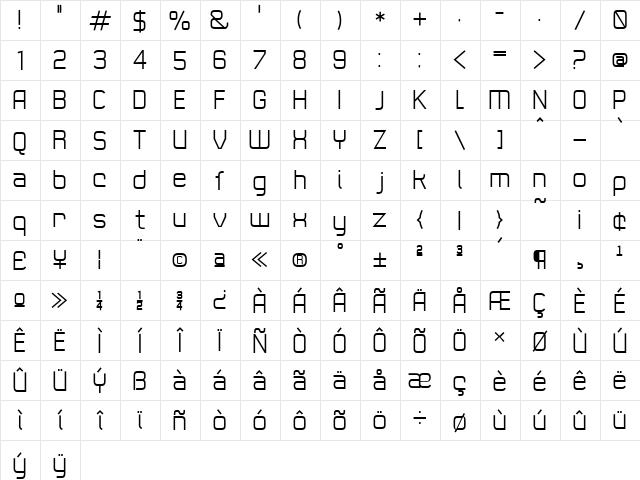
21st Regular
Design Context for 21st Typeface
21st takes a measured approach to typography — its balanced proportions and neutral character make it a reliable workhorse for both digital and print work.
Pro Tip: Pair 21st with a font of contrasting weight or personality to build a more expressive typographic hierarchy.